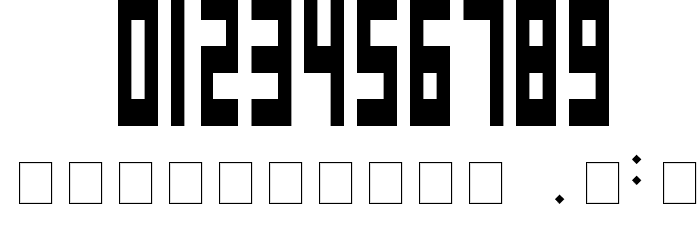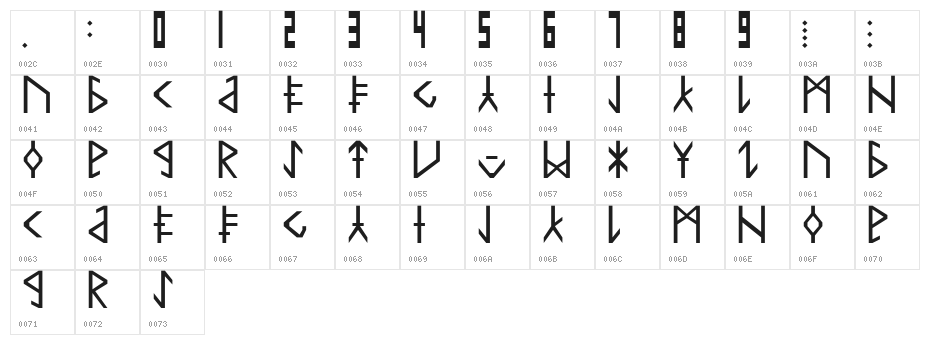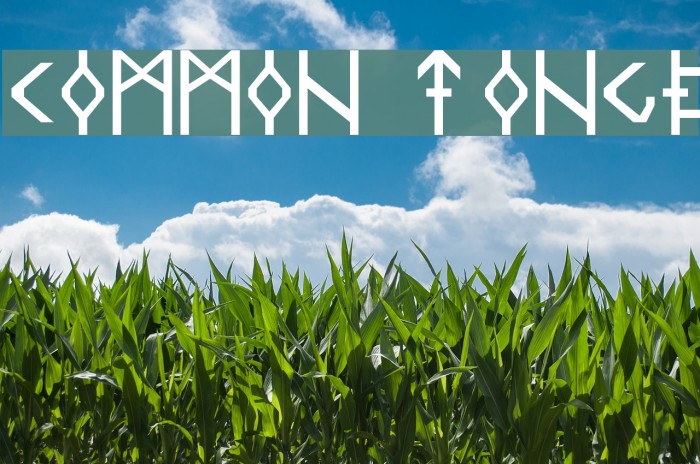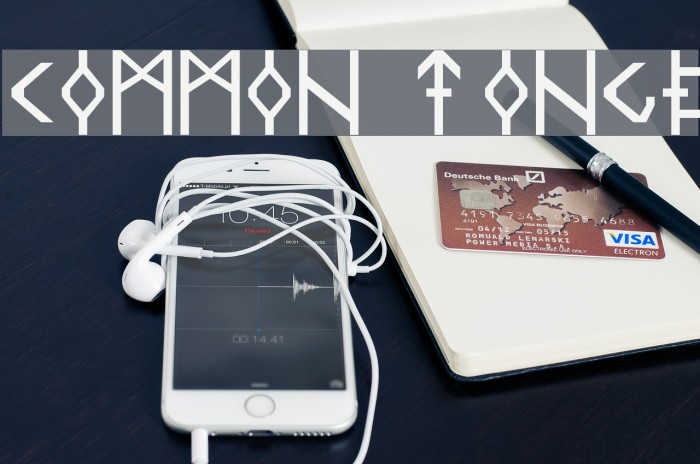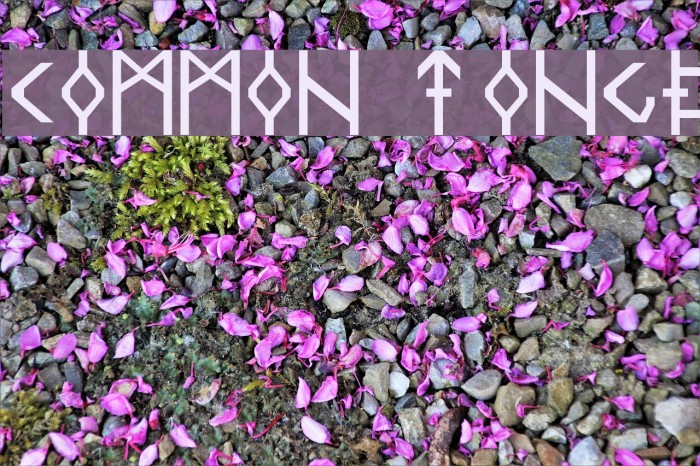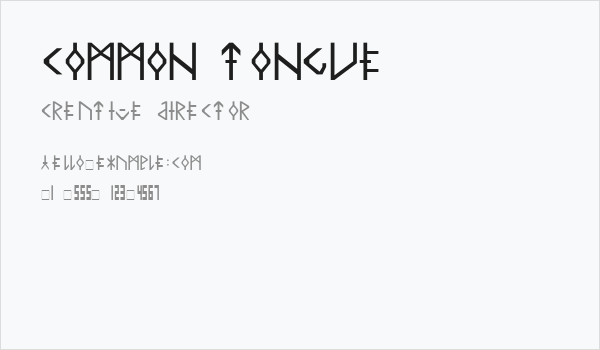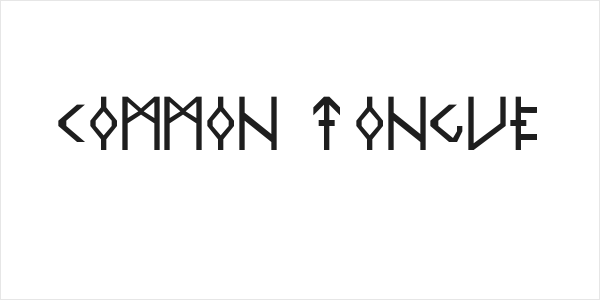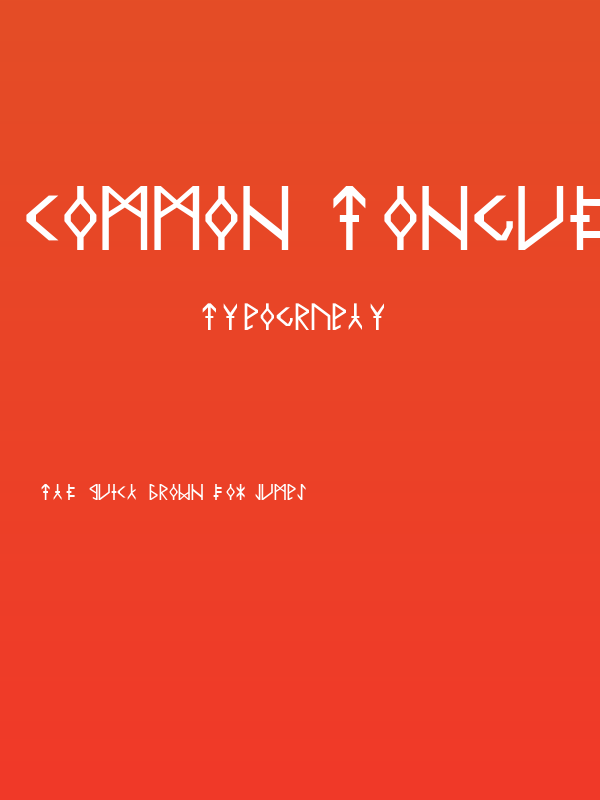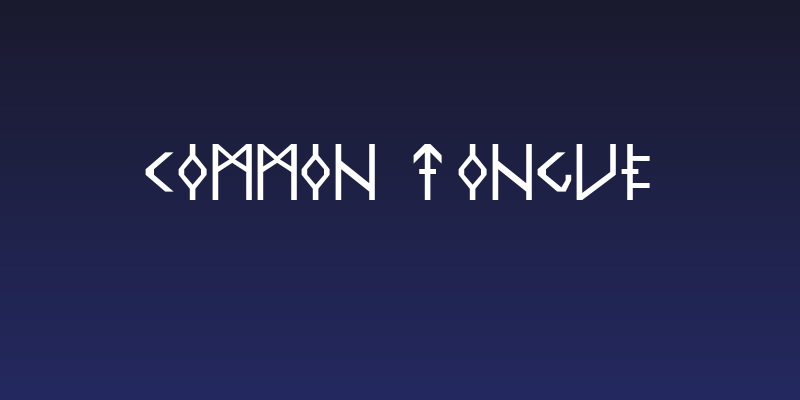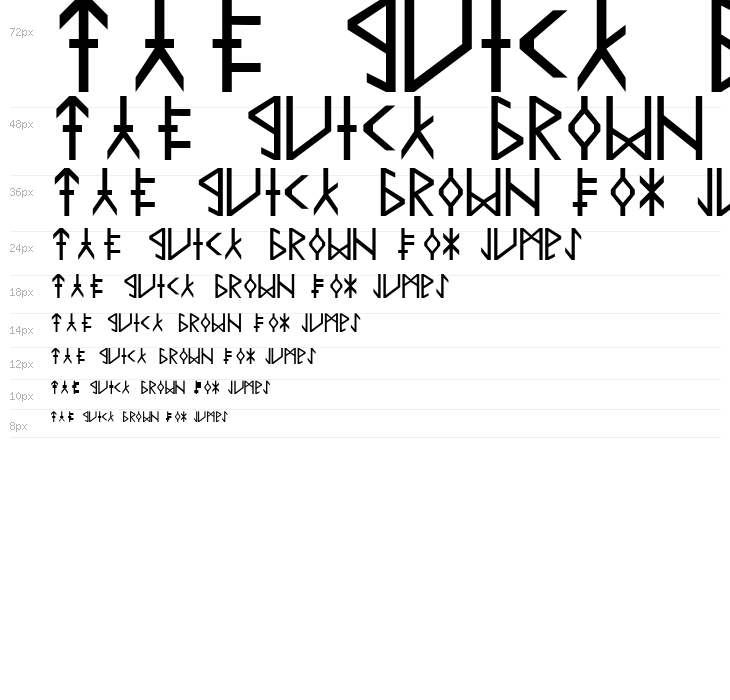
Common Tongue Font
Common Tongue Description
This font features a unique and striking design inspired by ancient runic alphabets, characterized by angular and geometric shapes. The uppercase letters exhibit a strong, bold presence with sharp edges and distinct forms, making them highly legible and visually impactful. The lowercase letters maintain the same angular style, providing a cohesive look throughout the typeface. The numerals are bold and consistent with the overall design, ensuring clarity and readability. Special characters are crafted with the same attention to detail, enhancing the font's versatility. This font is perfect for projects that require a touch of historical or fantasy elements, offering a modern twist on traditional runic symbols.
| Proposed Projects | Fantasy book covers, game titles, movie posters, themed event invitations, and branding for historical or mythological products. |